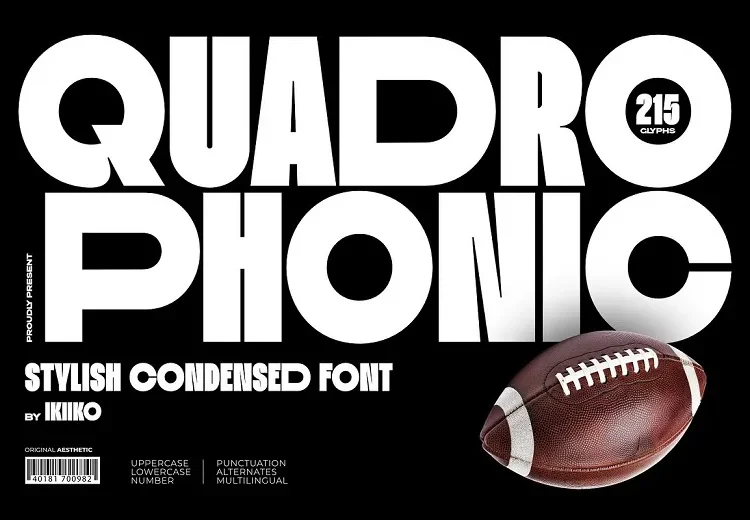
Quadrophonic Font
Quadrophonic Font is a modern, stylish, and highly distinctive condensed sans-serif typeface, designed for projects that need to make bold statements. Its strong and confident design is felt in every stroke, making it ideal for delivering a powerful and assertive look. The compact form of Quadrophonic Font allows for efficient use of space, ensuring that important information is conveyed without overwhelming the design, making it versatile for various creative projects.
This striking typeface is particularly well-suited for projects like movie posters, titles, and headlines. Its boldness makes it an excellent choice for magazine covers, websites, fashion branding, streetwear designs, and even trendy quote overlays on images. Wherever a stylish and modern touch is needed, Quadrophonic Font delivers an eye-catching, contemporary aesthetic.